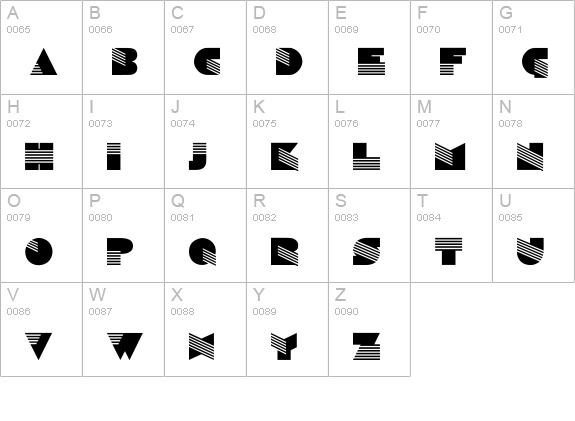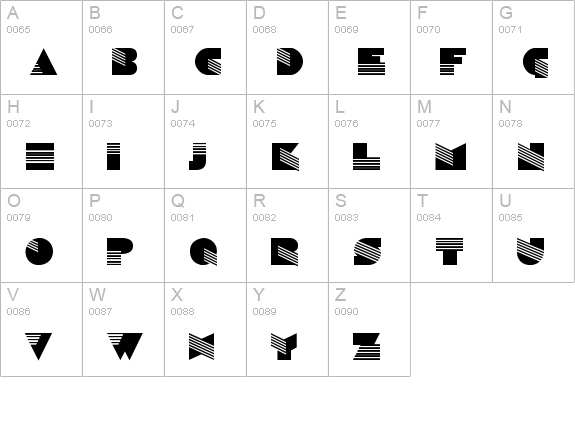
Sinalco Font Details
Sinalco font is a stunning typeface that effortlessly captures attention with its elegant, yet powerful design. Crafted with meticulous attention to detail, this font exudes a sense of sophistication and modernity that is perfect for a wide range of design projects. What sets Sinalco font apart is not only its striking visual appeal but also its versatility. Whether you are working on a branding project, creating eye-catching headlines, or designing captivating social media graphics, this font will effortlessly elevate your creations to new heights. But what truly makes Sinalco font a standout choice is that it is available for free download at FontsMarket.com. Yes, you read that right - this exceptional font can be yours without any cost. FontsMarket.com is a trusted platform that provides access to a vast collection of high-quality fonts, and Sinalco font is one of its prized offerings. By making Sinalco font freely available, the creators have ensured that designers and enthusiasts alike can easily access and utilize its beauty without any barriers. This font is a testament to the belief that creativity should be accessible to all, allowing anyone to bring their visions to life with professional-grade typography. So, whether you're a seasoned designer looking to add a touch of elegance to your projects or a budding enthusiast exploring the vast world of typography, Sinalco font is a must-have in your font library. Download it today from FontsMarket.com and unlock a world of creative possibilities that will leave a lasting impression on your audience.